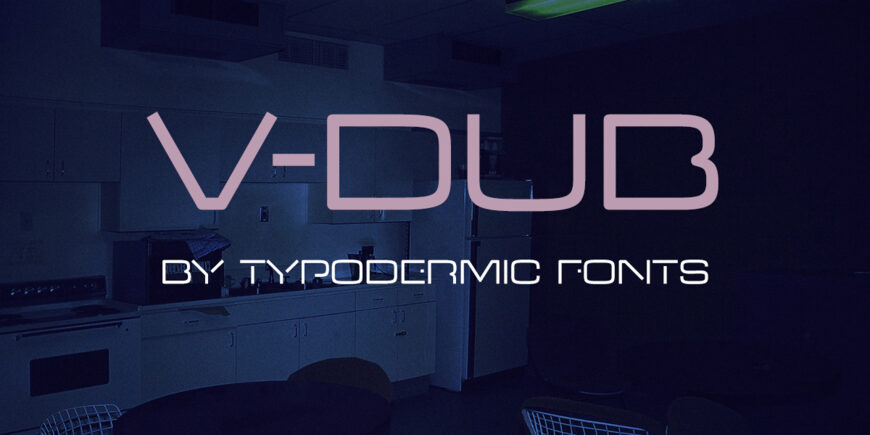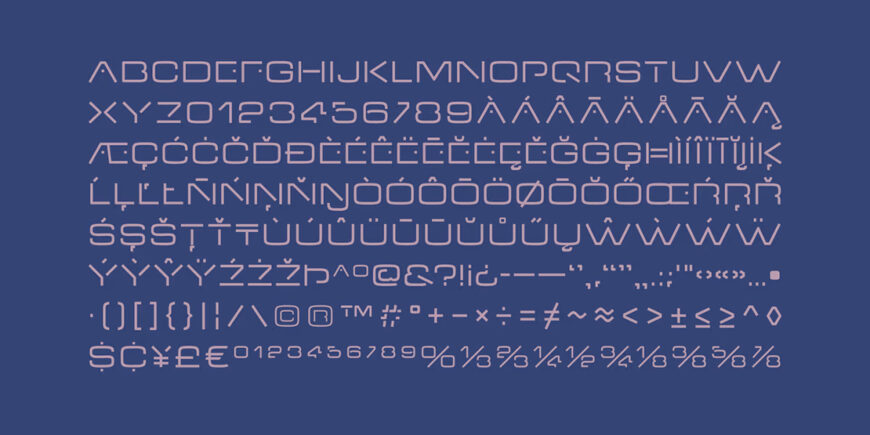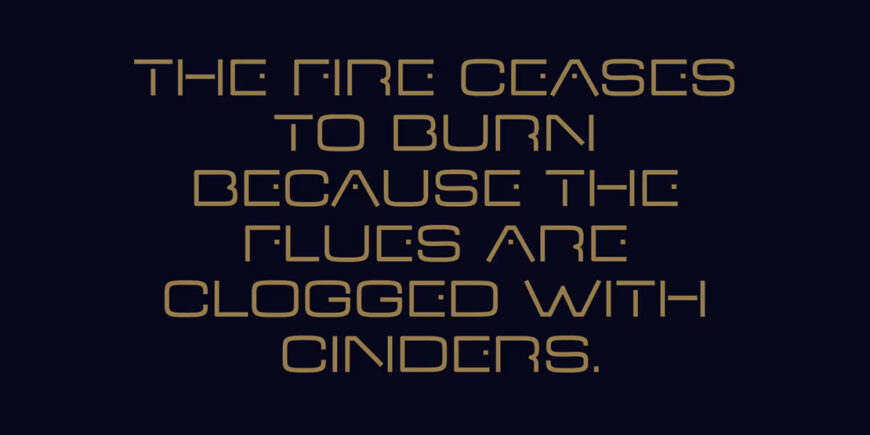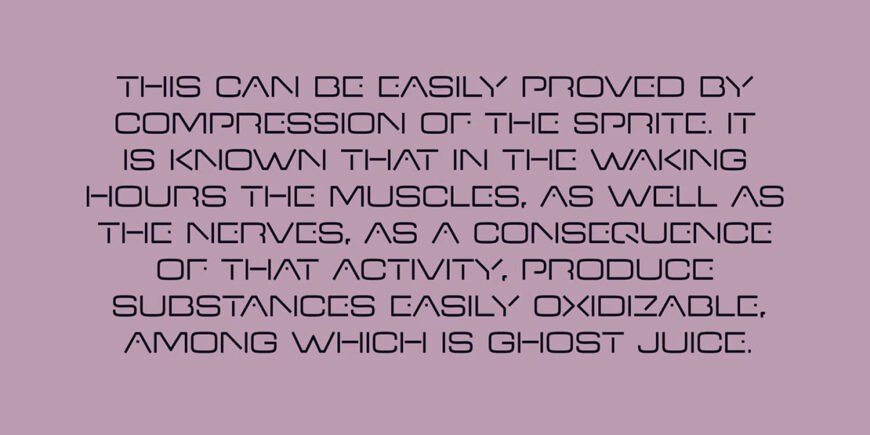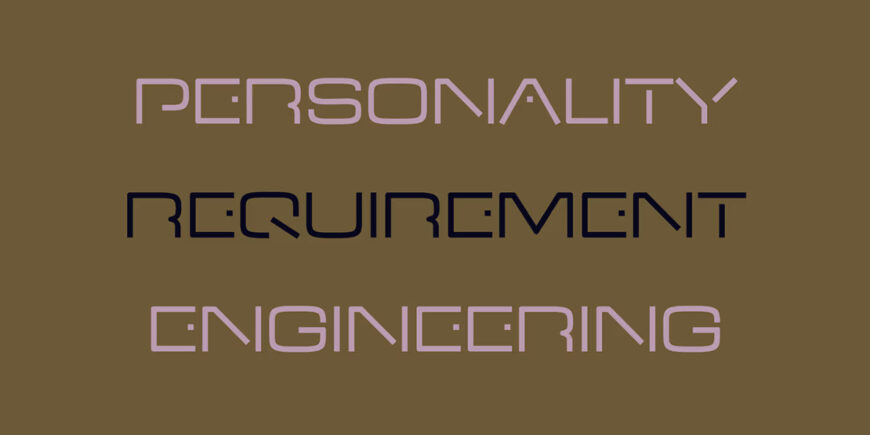
V-Dub Font
VDub is a display typeface with a superelliptical structure and minimal detail. Its distinctive stripped-down letterforms will instill a sense of technical efficiency and analytical wonder in your message.